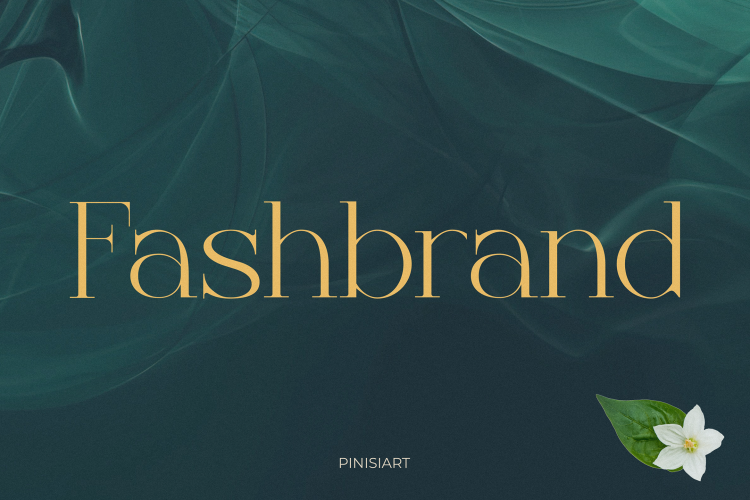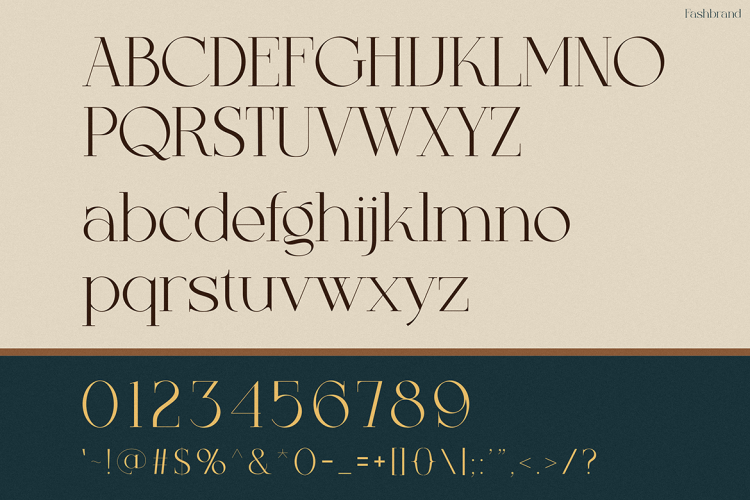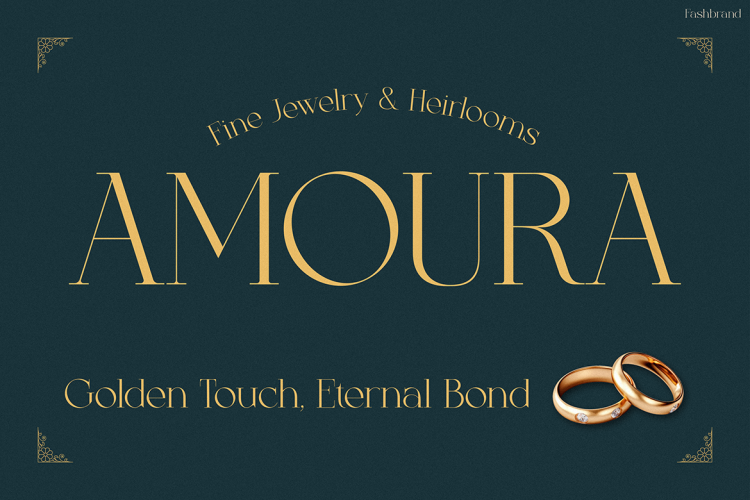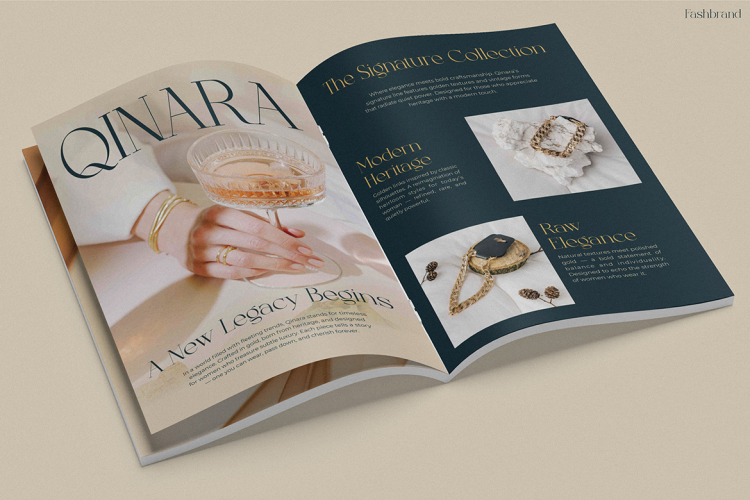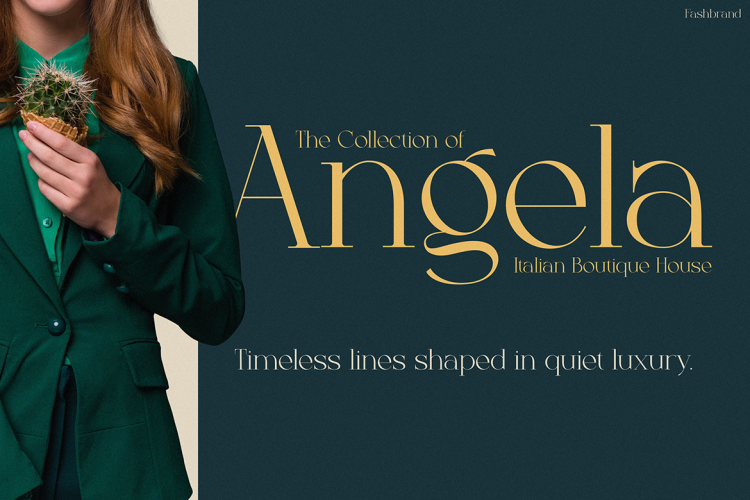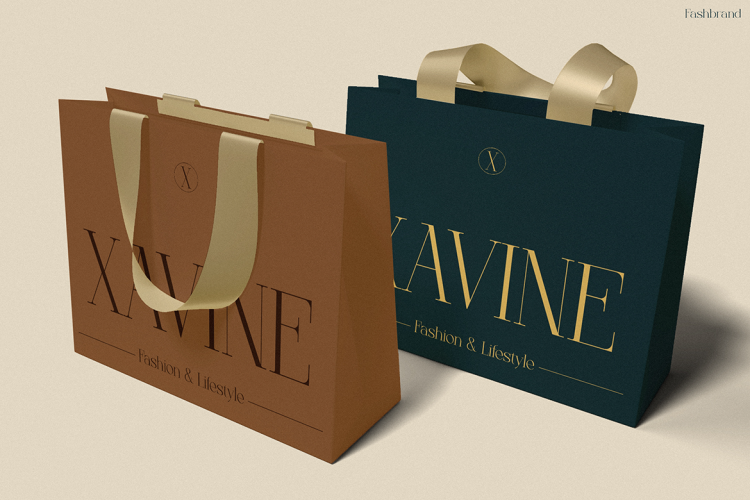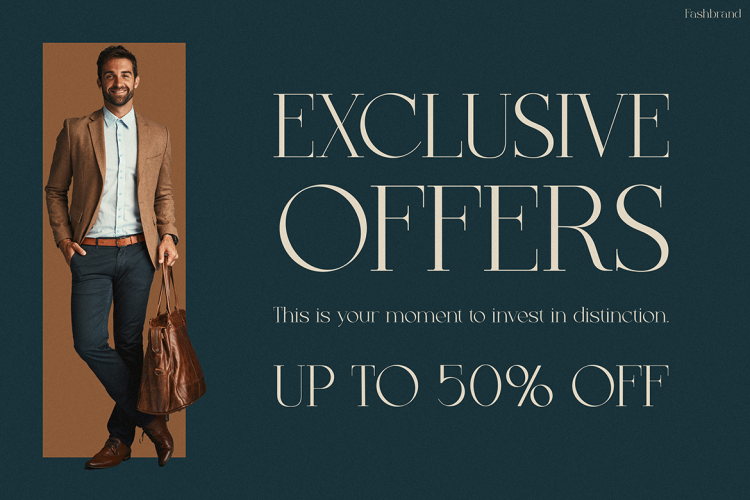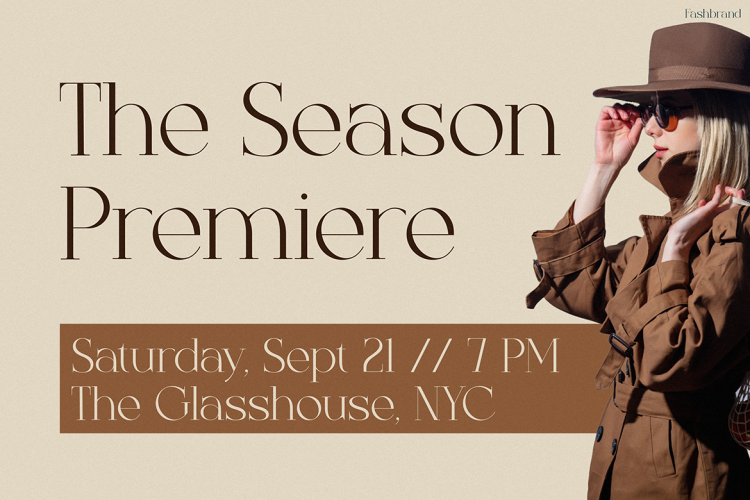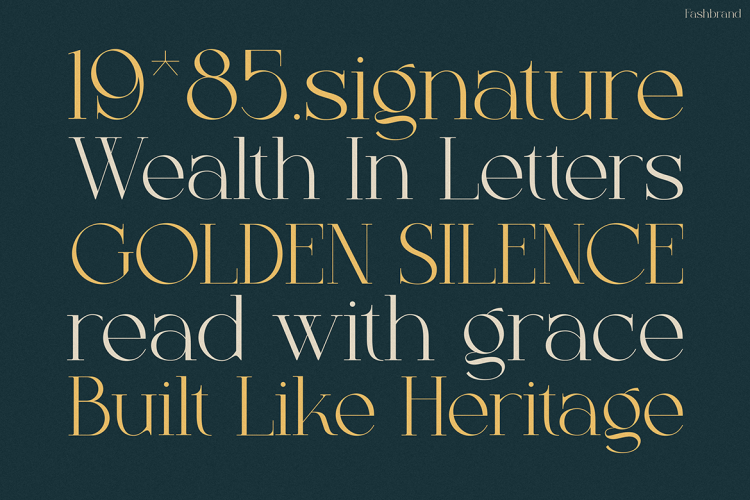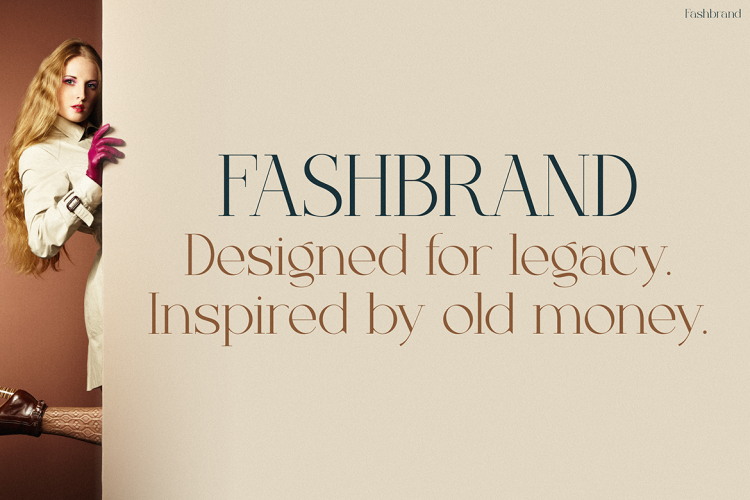
Instagram Font Fashbrand โ Elegant, Luxurious, and Made to Impress
Instagram Font Fashbrand brings instant elegance to any design. With bold vertical strokes and delicate curves, it blends modern minimalism with timeless beauty. As a result, your work gains a polished, high-end feel that commands attention across platforms.
Each letter in Fashbrand features precise detail and smooth structure. While it looks graceful, it also performs well in various formats. From headlines to captions, it remains clear and stylish. Furthermore, its refined ligatures and balanced shapes ensure every word appears intentional and well-crafted.
Unlike typical serif fonts, Fashbrand doesnโt overwhelm your design. Instead, it complements your content with subtle sophistication. Whether used on Instagram, product packaging, or wedding invitations, this font consistently delivers a luxurious, cohesive impression.
Perfect For: Creatives, Brands, and Designers Who Value Style
Fashbrand is an excellent choice for those building a premium visual identity. For instance, fashion designers, boutique owners, and beauty brands can all benefit from its elegant charm. Likewise, wedding vendors, jewelry designers, and content creators will find it elevates their aesthetics instantly.
Moreover, if youโre an influencer or entrepreneur looking to create polished social media content, Fashbrand is your ally. Use it in Instagram story covers, carousel posts, or promotional materials to boost professionalism and engagement. In addition, new brands can use this font to build credibility from day one.
Because of its flexibility, you can confidently use Fashbrand in both digital and print projects. Its clarity, style, and consistency make it a powerful design asset that grows with your brand.